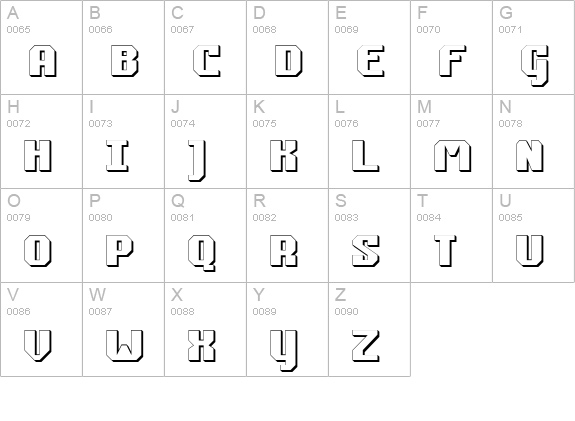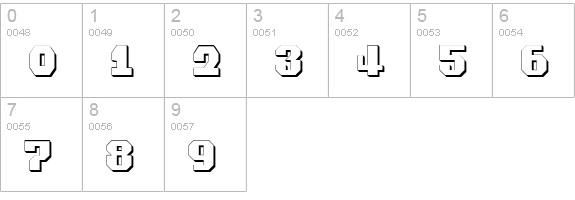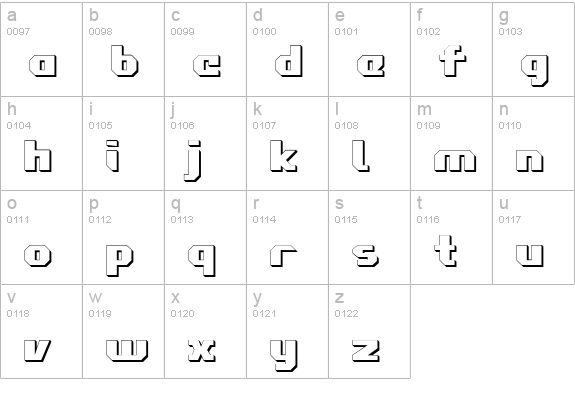
Introducing the stunning Commonwealth 3D font, a versatile and modern typeface that will elevate your design projects to the next level. This eye-catching font features a three-dimensional effect that adds depth and visual interest to any text. Commonwealth 3D is perfect for headings, logos, posters, and other creative endeavors where you want to make a bold statement. The best part? Commonwealth 3D font is completely free to download at FontsMarket.com, making it accessible to all designers and creators looking to add a touch of sophistication to their work. With its sleek and contemporary design, this font is sure to make a lasting impression and set your projects apart from the rest. Don't miss out on this amazing opportunity to enhance your designs with the Commonwealth 3D font today!